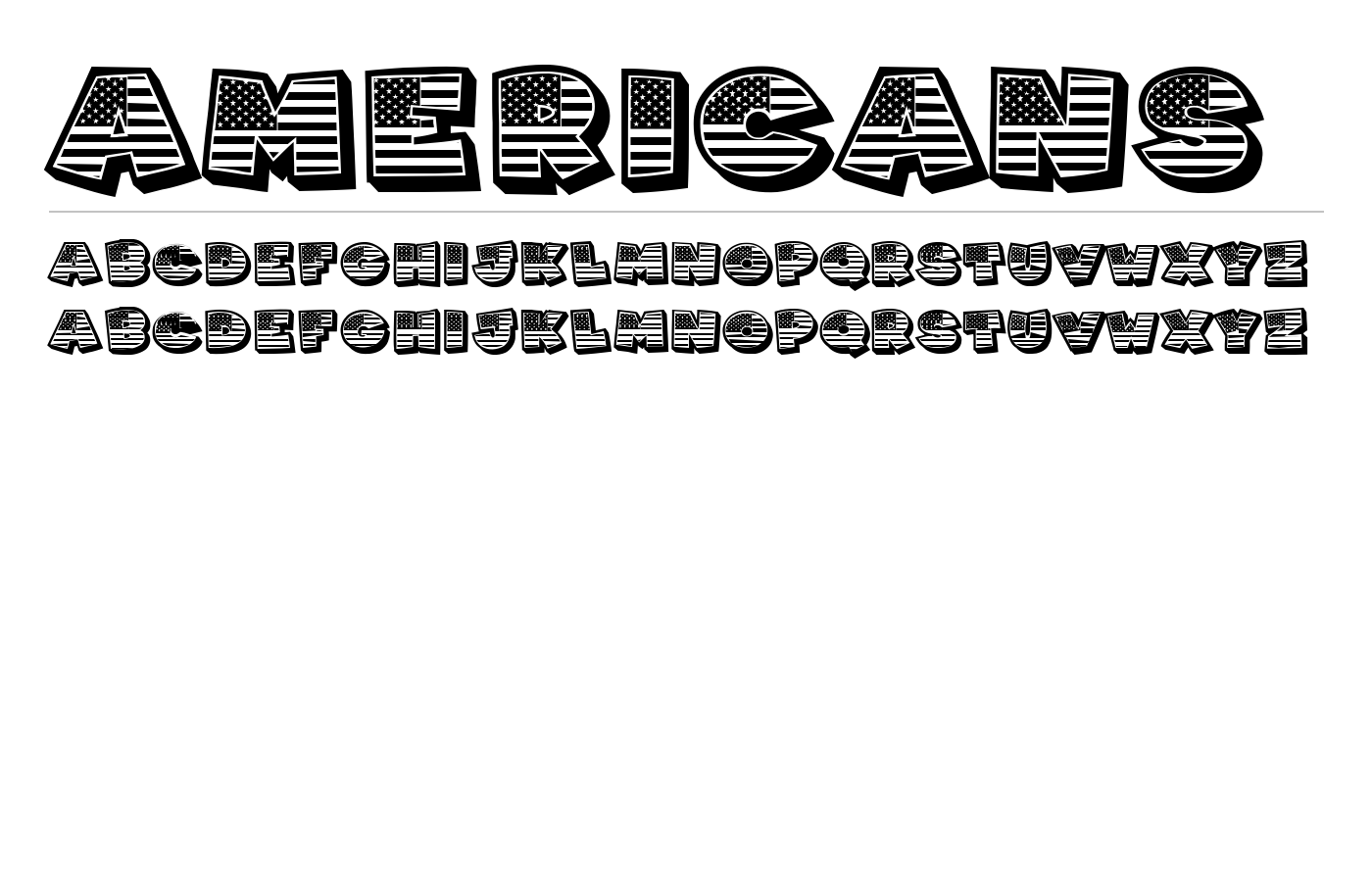
Americans Font is a bold, playful display typeface featuring strong, blocky letters filled with a distinctive American flag pattern that adds dynamic visual interest. Its chunky, three-dimensional style with sharp edges makes it perfect for patriotic themes, eye-catching headlines, and festive branding where a lively, spirited tone is desired. Ideal for posters, event promotions, and packaging, this font brings a fun, energetic vibe that celebrates American pride with a modern twist.
Americans Font
About Americans Font